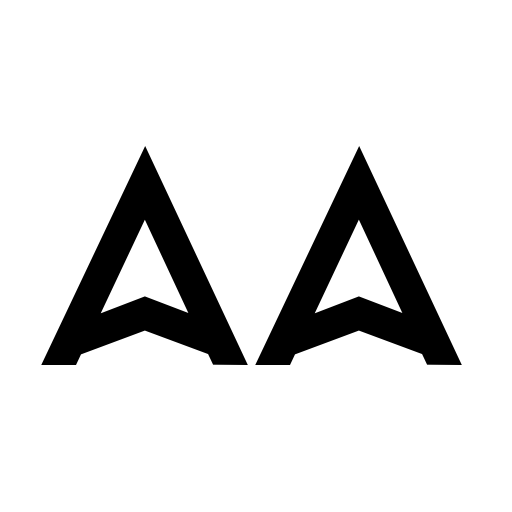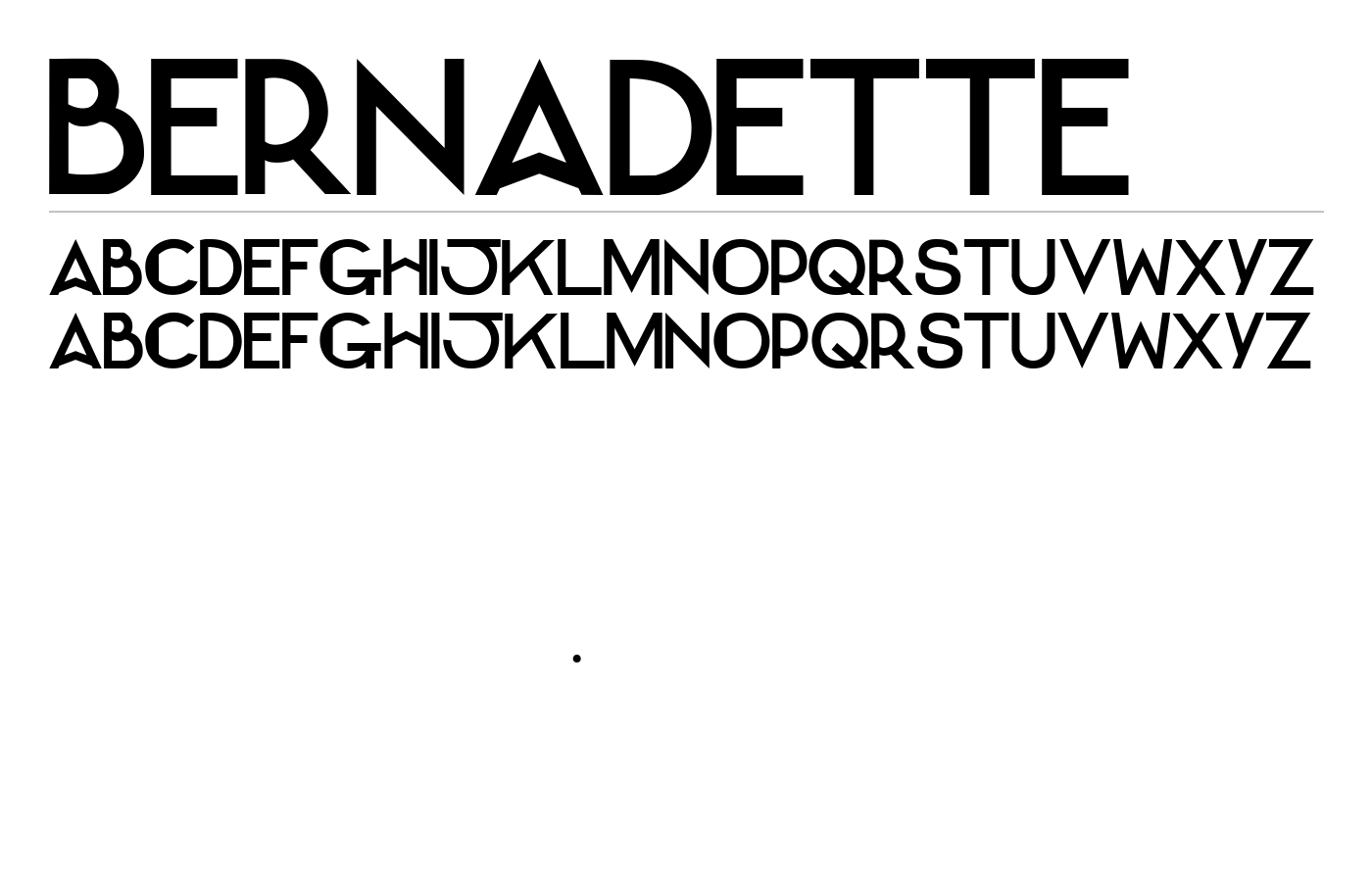
Bernadette is a bold, modern sans serif font characterized by its strong geometric shapes and unique angular details, especially visible in letters like A and R. With its high contrast and clean, sharp edges, this font conveys a contemporary, confident personality ideal for impactful headlines, logos, and branding that require a striking, memorable look. Its uppercase-only style with creative letterforms makes it perfect for fashion, editorial, and design-focused projects seeking a distinct, avant-garde flair.
Bernadette Font